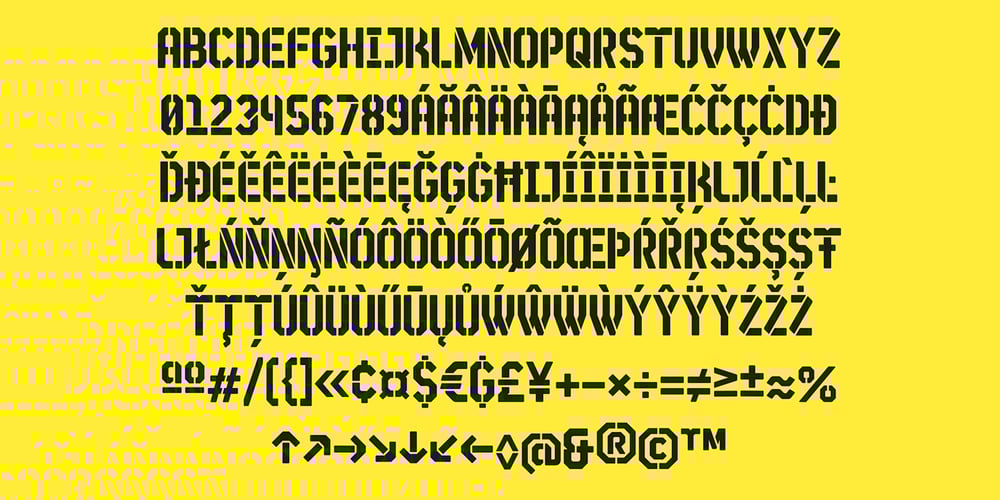
STP Stencil Font Family was designed by Alexandre Ruda and published by Sete Std. STP Stencil contains 1 styles and family package options. Developed from the STP Display, the STP Stencil Typeface follows the same characteristic premise as its sister, in addition to composing the same number of Latin characters. What distinguishes them it’s that the STP Stencil can be applied more easily anytime, anywhere, increasing the possibility of being used in a more craft and artistic way. Since it has characteristics of a stencil font, it brings a more urban and contemporary look, which makes ideal to use it in public spaces with large circulation of people. In addition, wayfinding, architectural, advertising, packaging, posters, among others projects, are a good request for STP Stencil show its vigor and all its beauty. The STP Stencil is a modular feature source, perfect to use it in major event signaling projects or similar. It can also be useful in any demands that requires improvisation and quick solutions. The STP Stencil has very expressive forms and counterforms, but still counts with the practicality of a stencil source and its infinite possibilities of use. With a complete Latin alphabet, STP Stencil covers over 90% of the supported languages, covering the entire American continent, East and West Europe and most of the countries of Africa, Asia and Oceania.